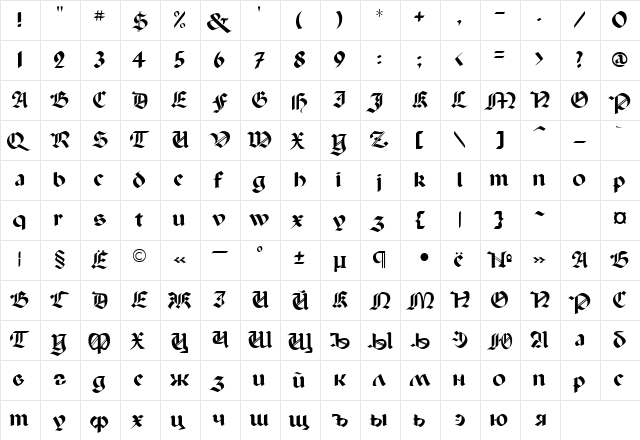
PaladinRus Regular
Design Context for PaladinRus Typeface
PaladinRus is a composed and adaptable typeface that performs quietly and consistently across a wide range of design contexts.